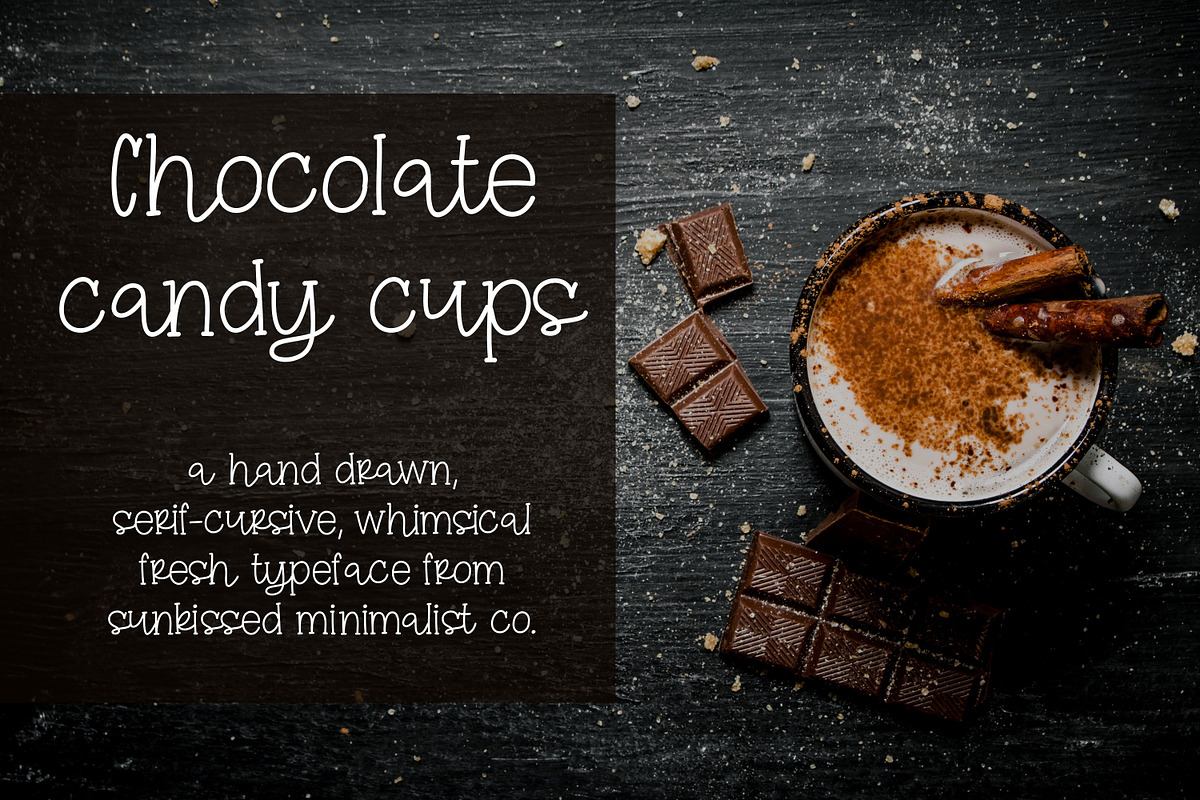
You must purchase this font for commercial use. However, you can download Chocolate Candy Cups Font Free Download for testing purposes. Chocolate Candy Cups is a fun, whimsical font that combines a playful, handwritten style with rounded, candy-like letters. Perfect for creating lighthearted designs, logos, posters, packaging, and social media content, this font adds a sweet, creative flair to any project.
The font’s playful design and round, smooth letterforms make it ideal for projects related to food, children, events, or anything that needs a joyful and friendly touch. Whether you're designing for a candy shop, crafting an event invitation, or creating a fun brand identity, Chocolate Candy Cups Font brings sweetness and personality to your typography.